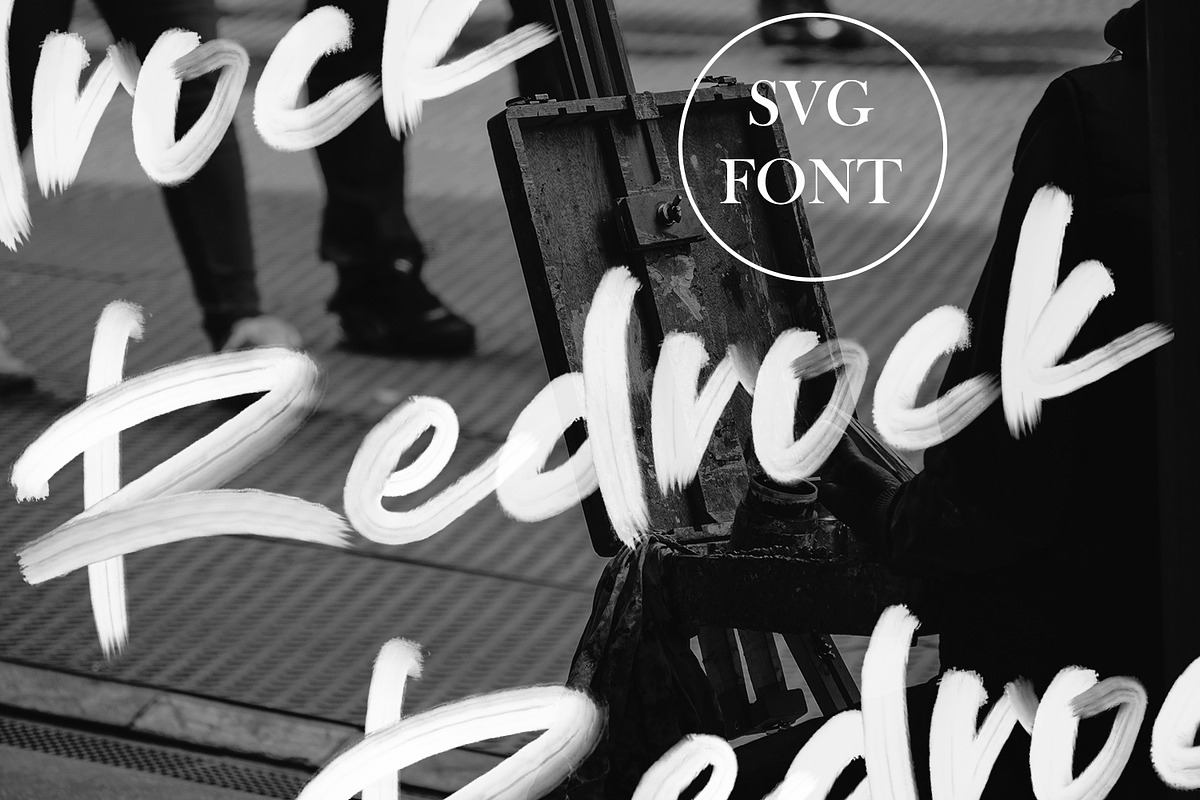
Redrock - SVG Brush Font Free Download is a bold and expressive typeface that brings a natural hand-painted feel to your designs. Perfect for branding, posters, album covers, and creative advertising, this font stands out with its textured strokes and authentic brush details. Its SVG format captures every nuance of brush pressure and paint texture, offering a truly realistic handwritten look that’s hard to achieve with regular vector fonts.
Whether you’re a graphic designer, illustrator, or marketing professional, Redrock - SVG Brush Font Free Download can elevate your visuals with an edgy, artistic vibe. This font works great on both print and digital platforms, making it a versatile tool in your creative toolkit. Try it out today and see how Redrock brings raw energy and character to your work. Remember, commercial projects require a valid license, so don’t forget to purchase it if you love it!